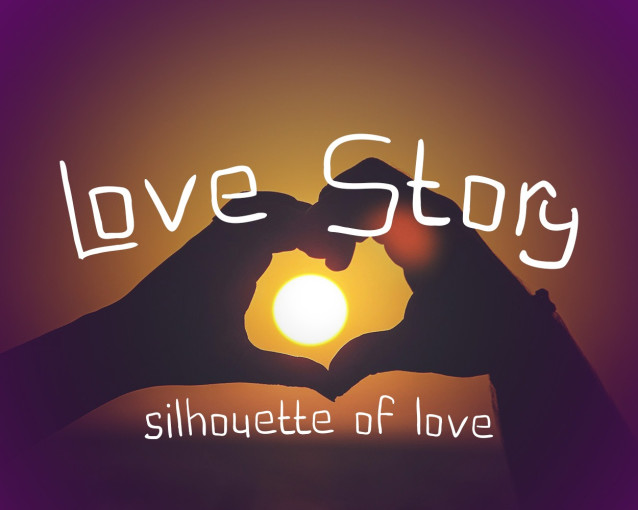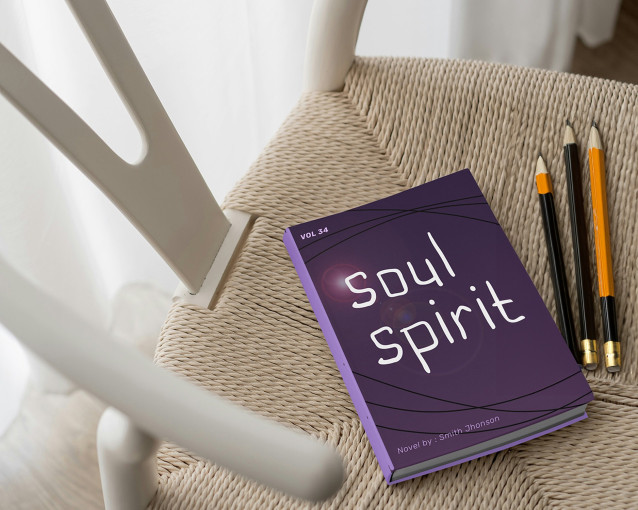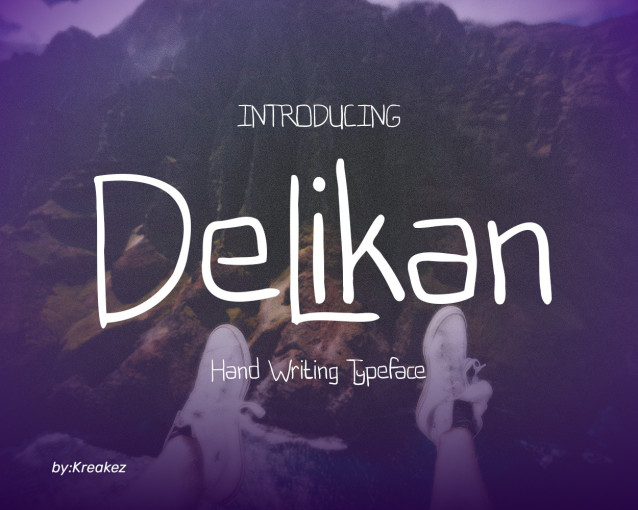
Delikan Font
Delikan Font is a handwritten font inspired by the classic game “Hide and Seek” or in Javanese called “Delikan.” This font has a unique character with a cute and flexible impression, suitable for various design purposes that want to appear different and create a relaxed atmosphere. The irregular shape of the letters gives a natural and flowing feel, as if it was drawn directly by hand. Delikan is very suitable for use in design projects that want to highlight the creative and casual side, such as in product design, packaging, or publications that require a personal touch.